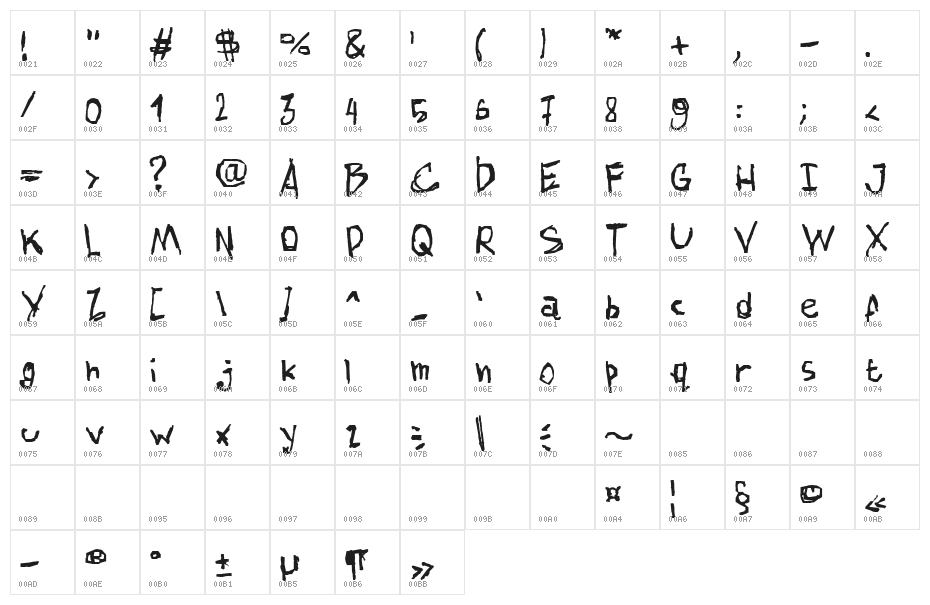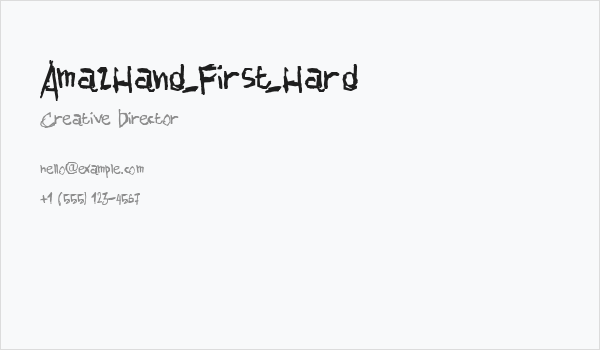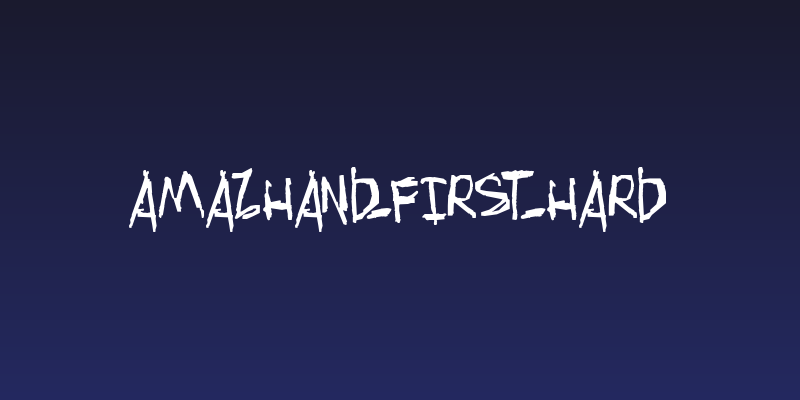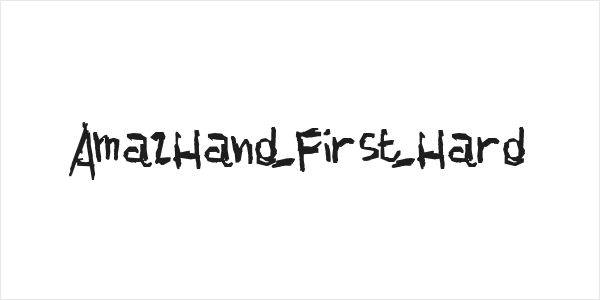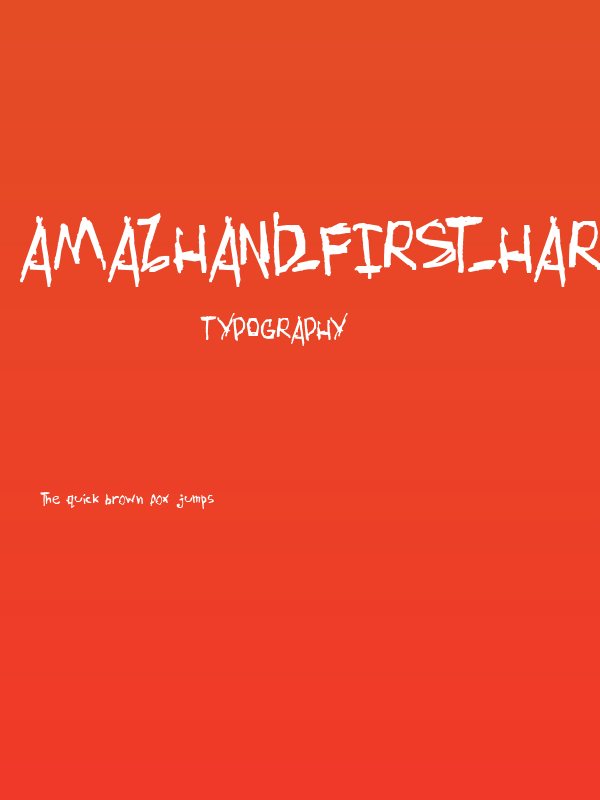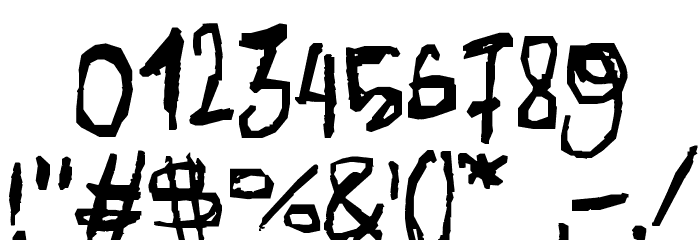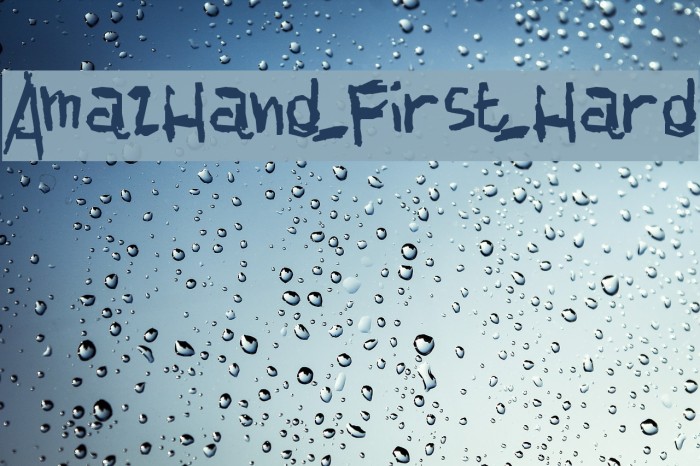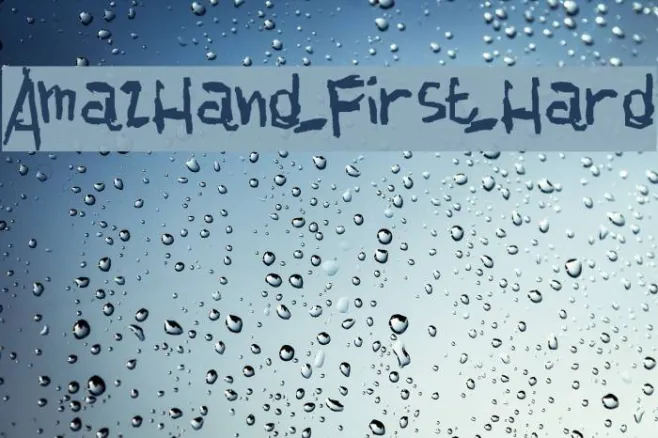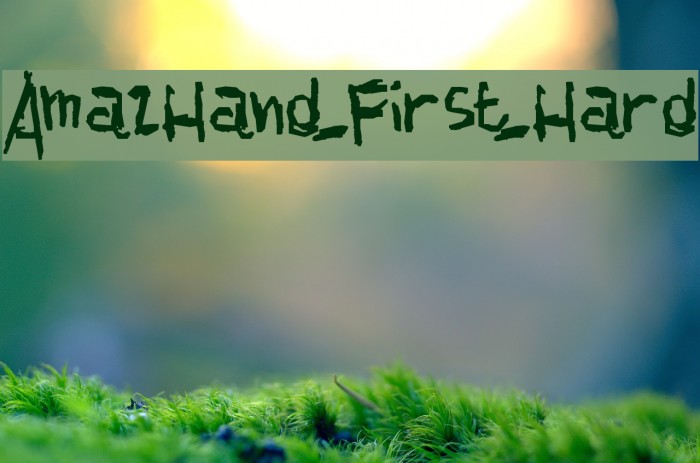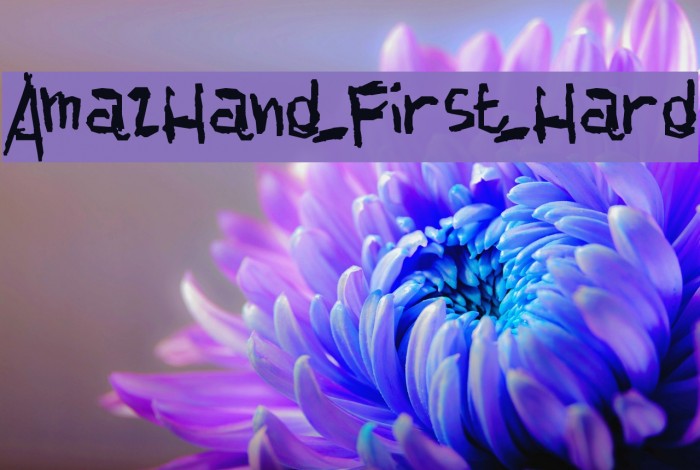
AmazHand_First_Hard Font
AmazHand_First_Hard Description
This font features a bold, hand-drawn style with a rugged and expressive appearance. The characters are unevenly shaped, giving a raw and artistic feel. The strokes are thick and irregular, creating a sense of movement and energy. This font captures a sense of spontaneity and creativity, making it ideal for projects that require a personal touch. The uppercase and lowercase letters maintain a consistent style, while the numbers and special characters complement the overall design. The font's unique character is perfect for making a bold statement.
| Use Case | Logos, Headlines, Posters |
| Proposed Projects | Ideal for artistic projects, posters, album covers, and creative branding. |